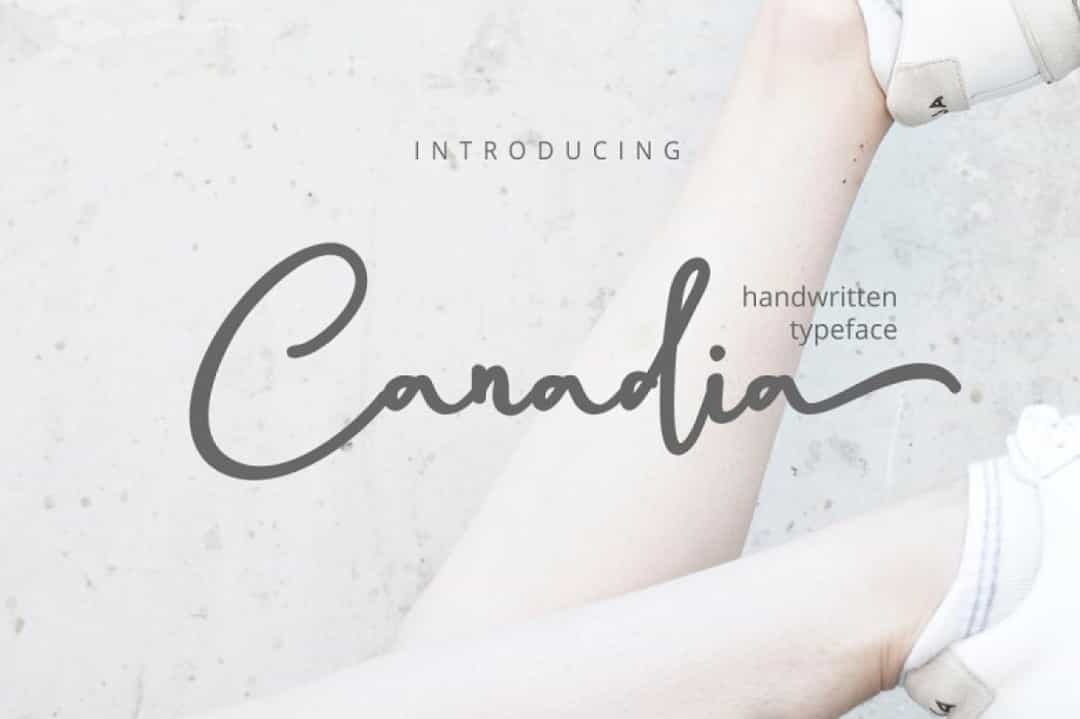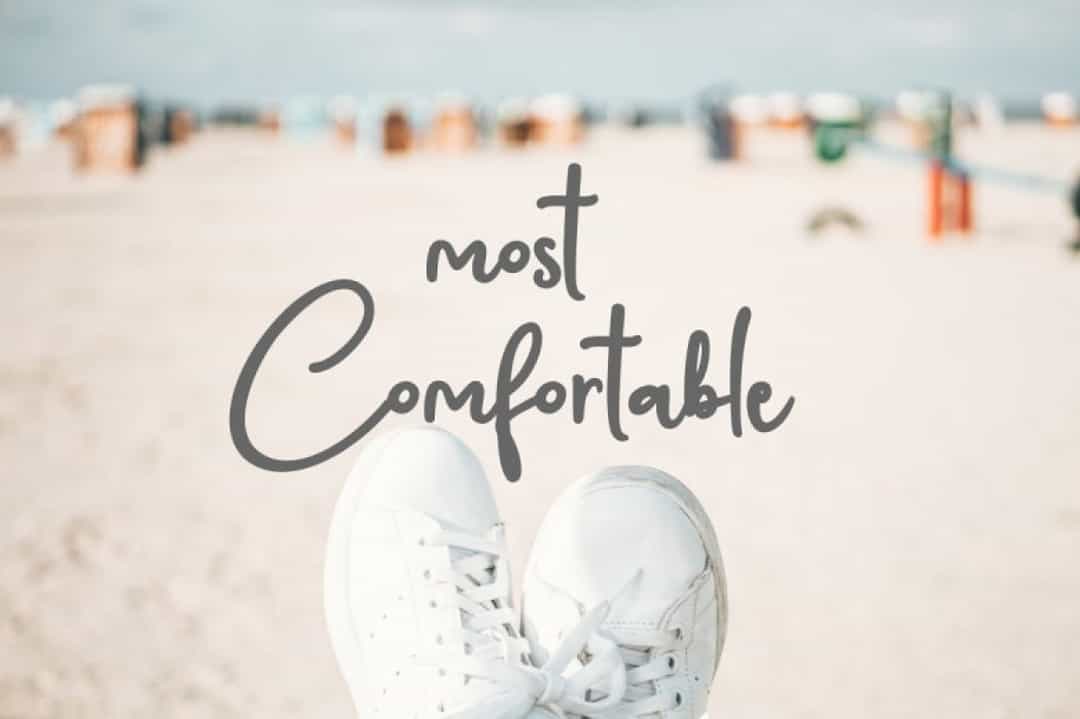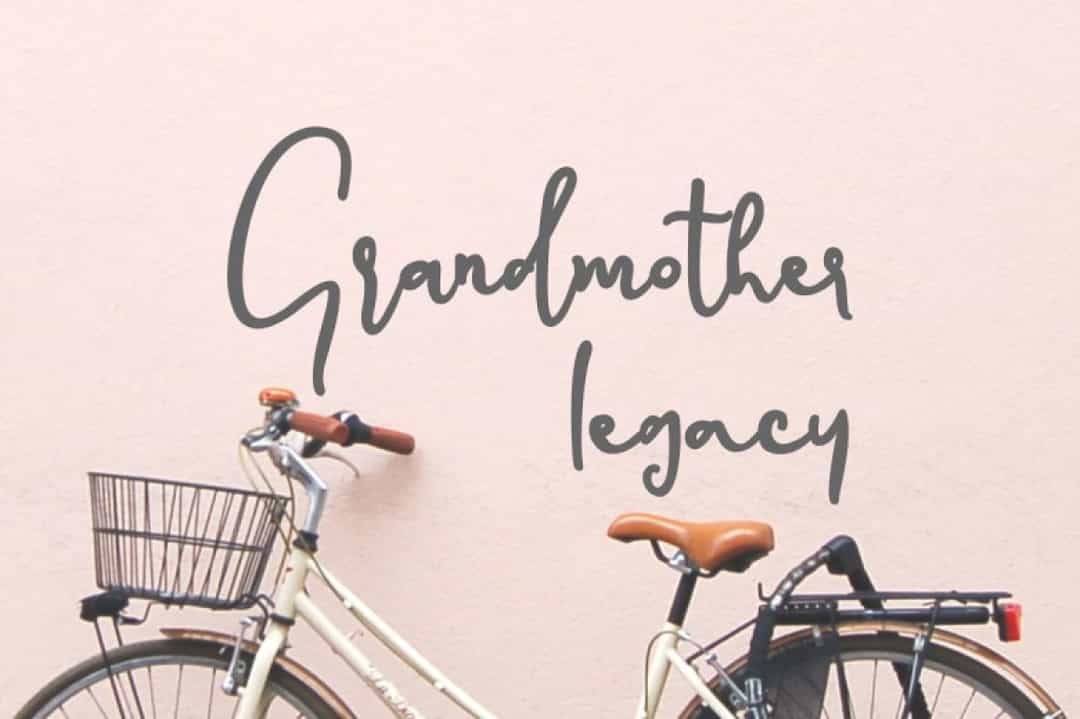
Discover Canadia Script Font, part of the Brush Handwritten collection—a versatile and unique font perfect for adding a personal touch to your projects. Download it for free and enjoy crafting designs with style, from invitations to social media posts. This font is available exclusively for personal use, giving you the freedom to create without limits. Unlock your creativity with Canadia Script Font today!
Canadia Font – It allows you to design your text almost as if it were handwritten with all the adorable imperfections and variations that a real handwriting has. Canadia was made and released by Bonjour Type. Canadia Script is a rocky baseline font that will give your design a contemporary and fresh look, it will be so beautiful on quotes, cards, and all other your beautiful projects.